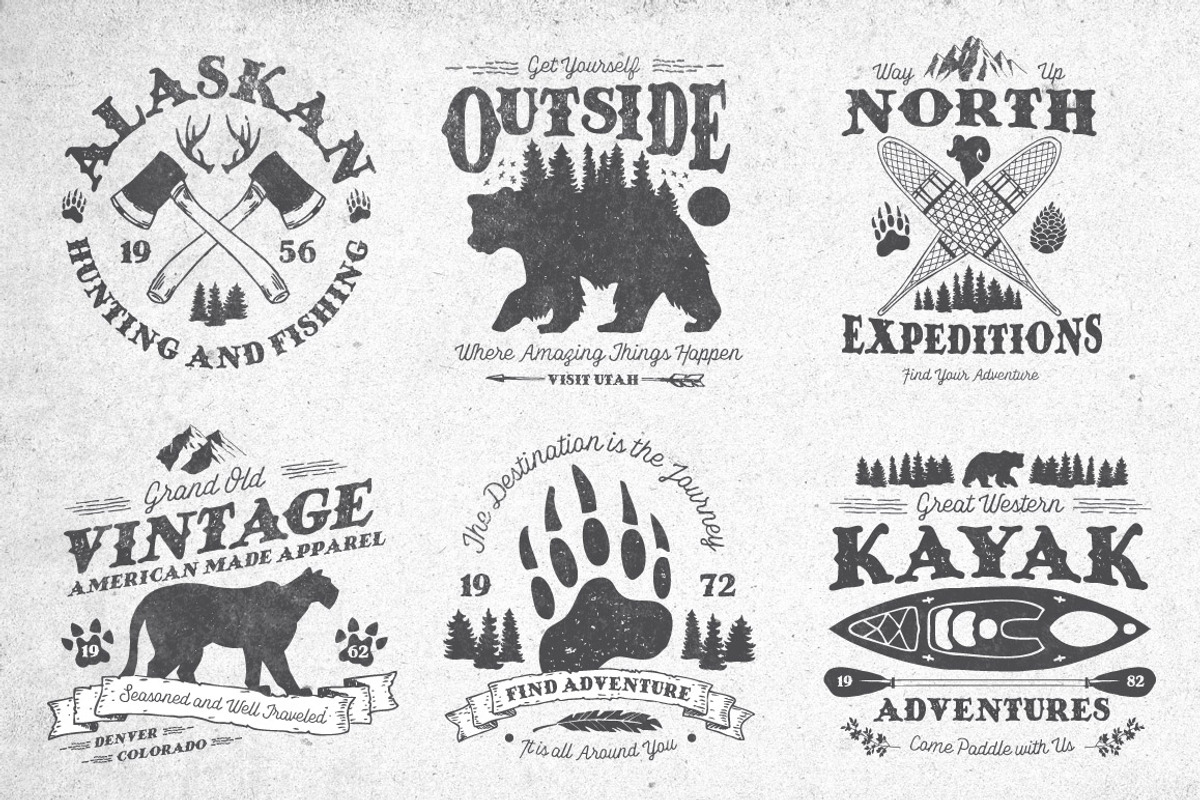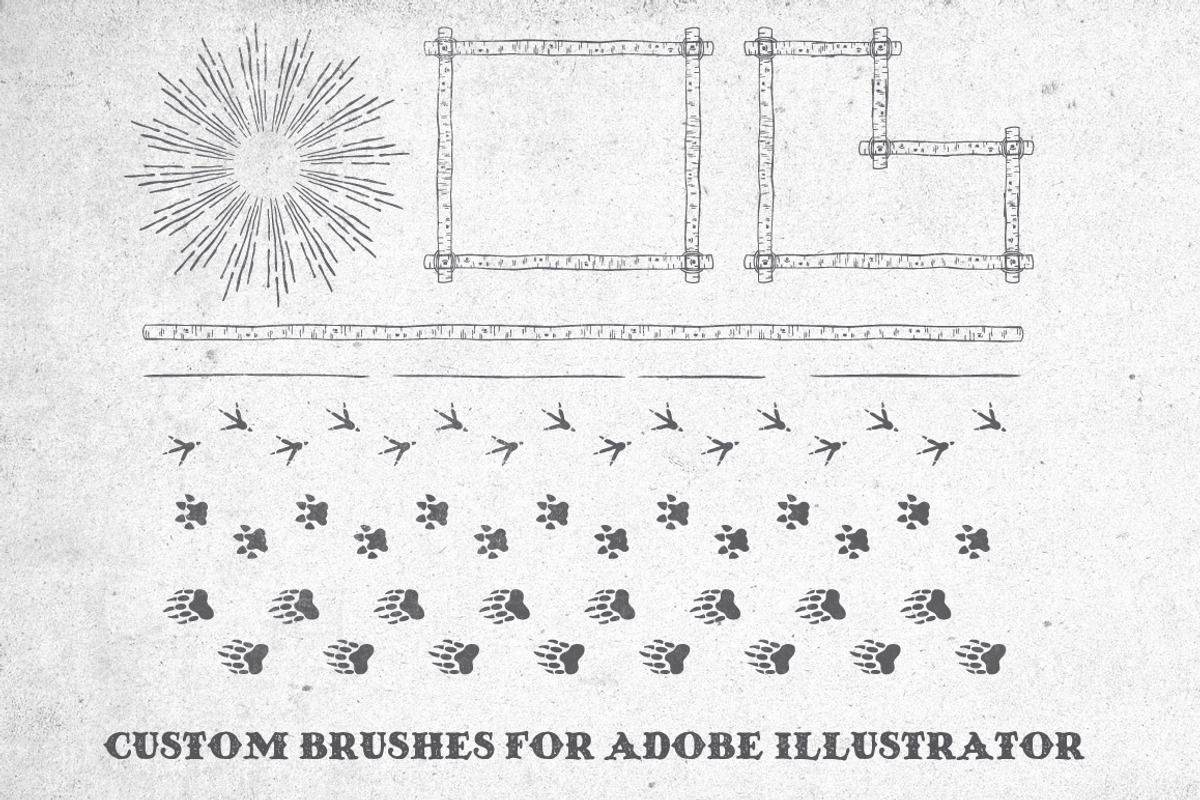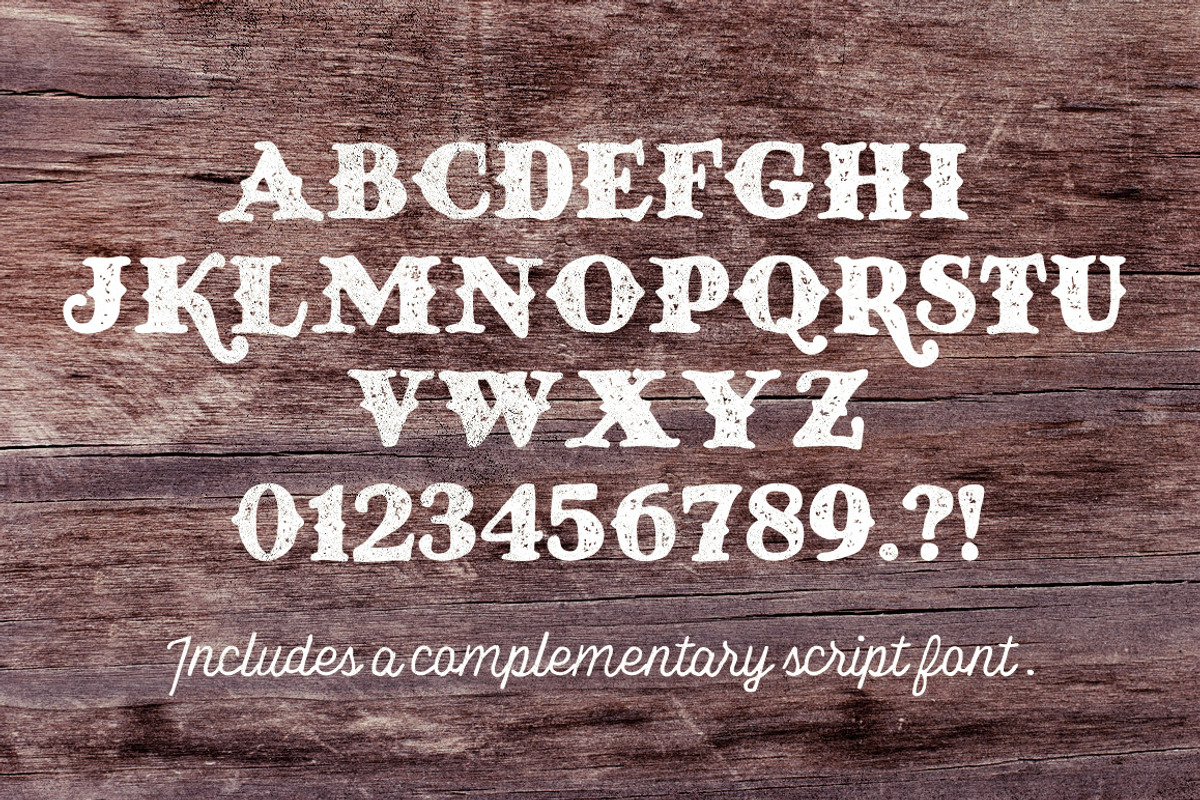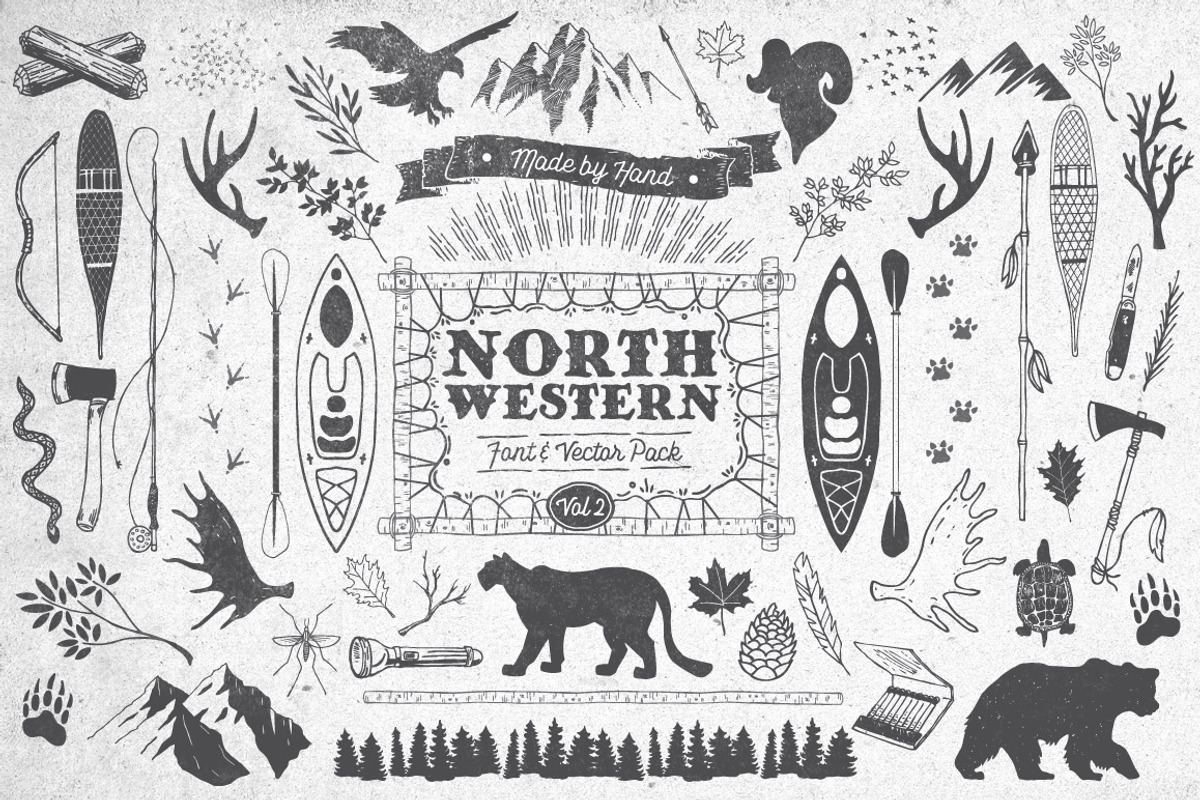
North Western Font + Vectors Vol 2
North Western Font + Vectors Vol 2 by Nathan Brown is a font selected for branding, posters, packaging, typography.
- 2 Hand drawn fonts
- 50+ Hand drawn vector graphics
- 6 Vintage style vector badges
- 6 Custom brushes for Adobe Illustrator
Why North Western Font + Vectors Vol 2 is worth a look
North Western Font + Vectors Vol 2 by Nathan Brown fits naturally into Branding, posters, packaging, typography.